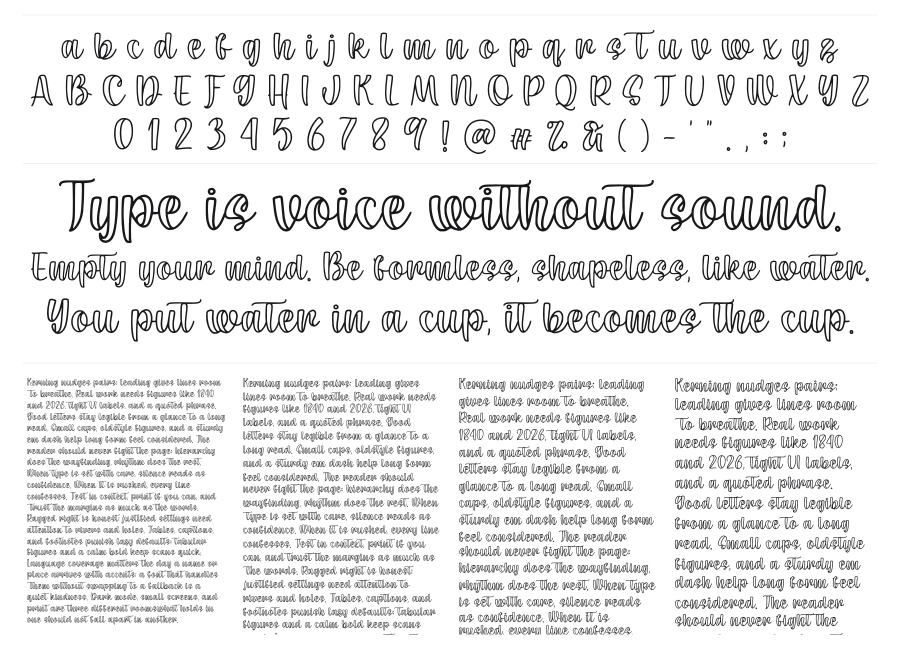
Cantiqu
Cantiqu is a casual connected script with a distinctive outline construction that gives each letter a clean, double-stroked appearance. The rounded flowing forms and lively baseline rhythm communicate a handmade, artisan quality. It's part of a trio alongside solid and monoline versions, offering flexibility across different design contexts.